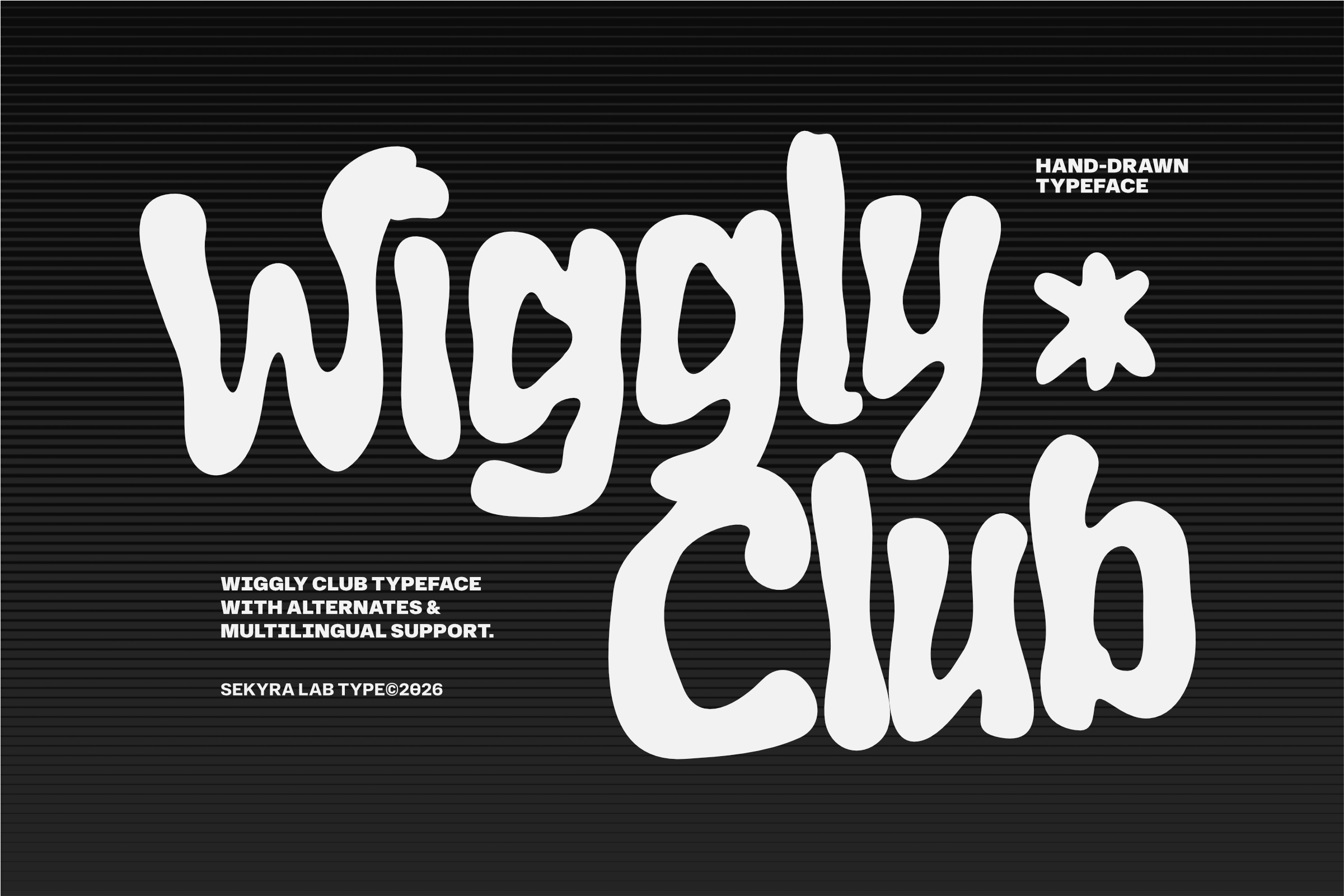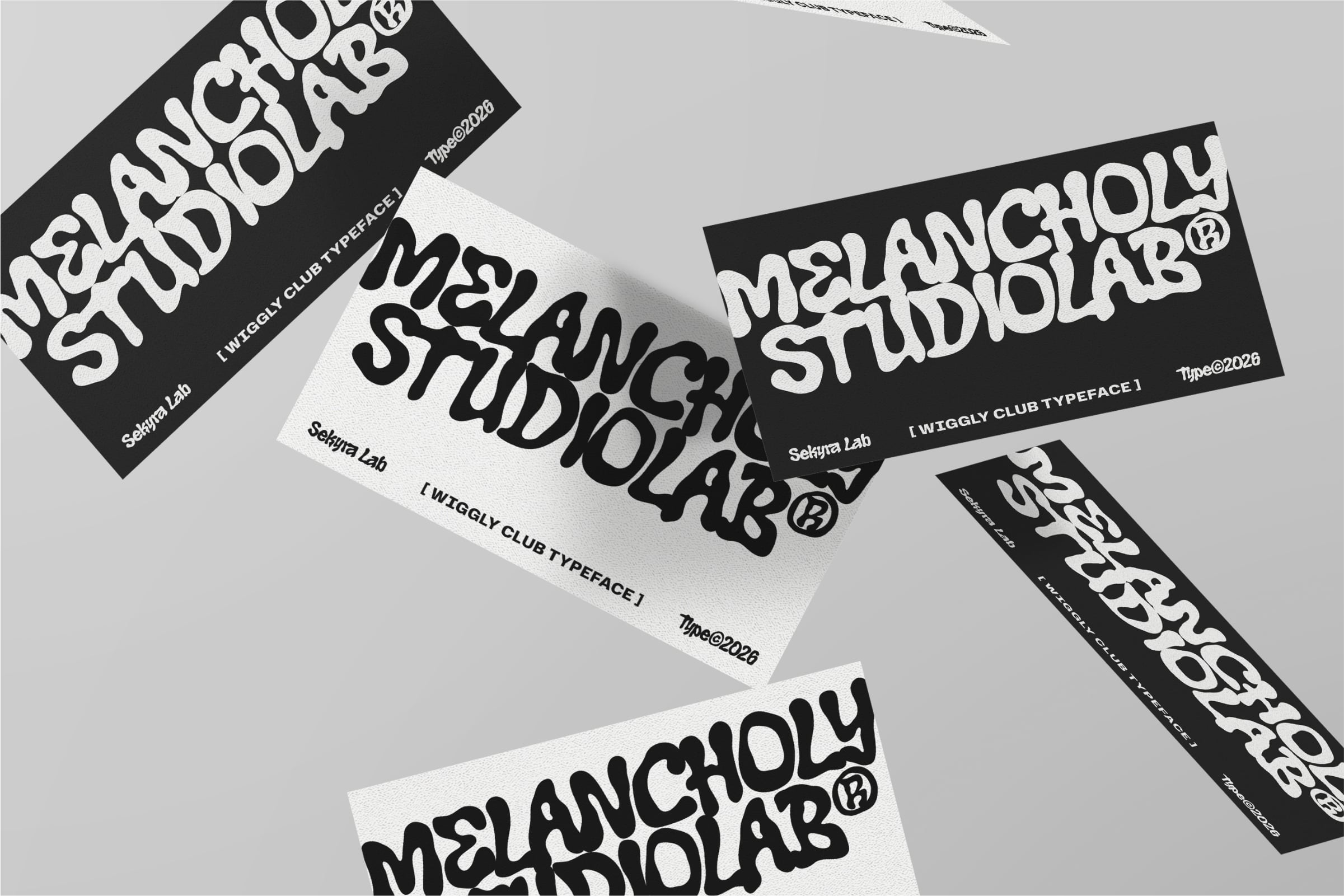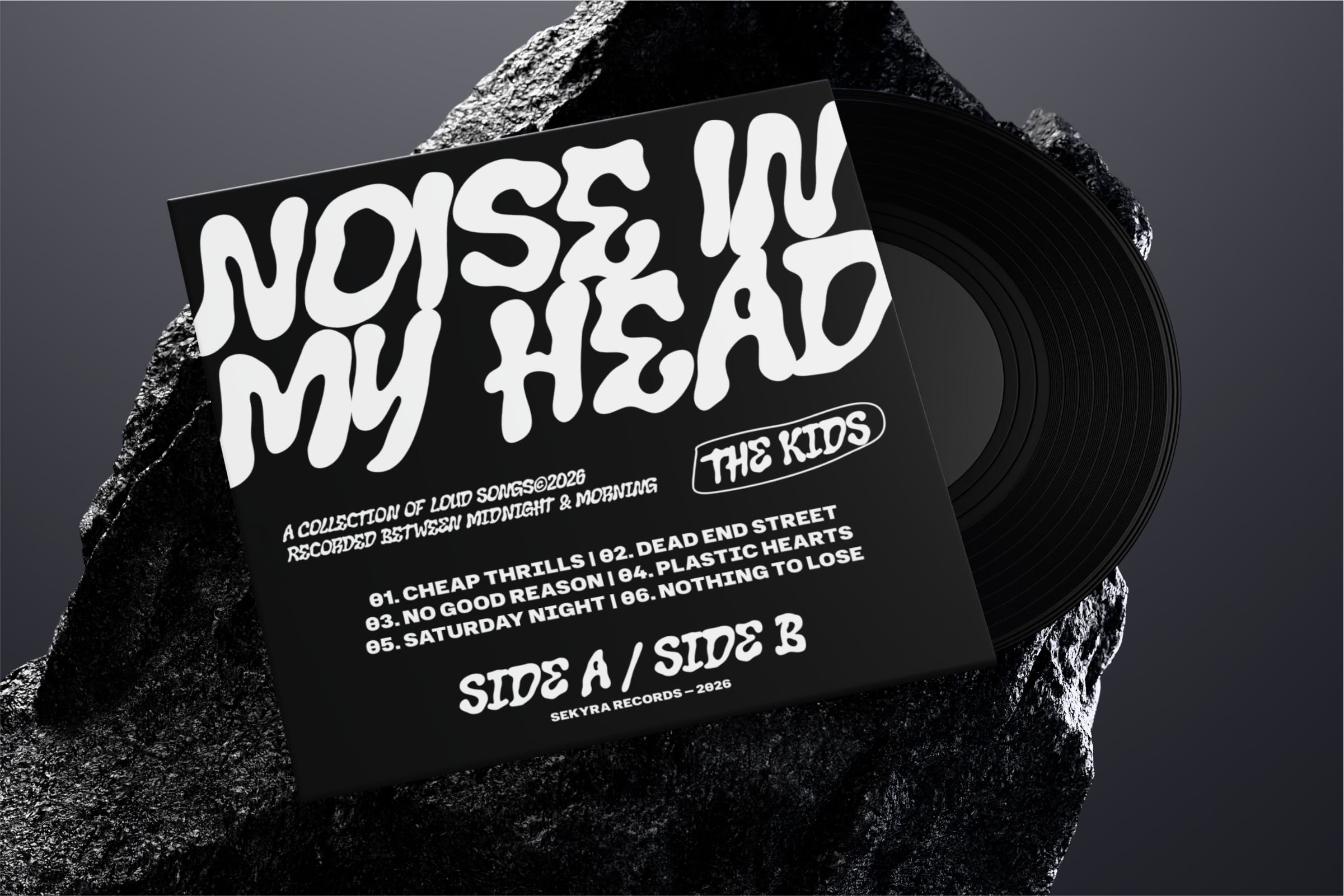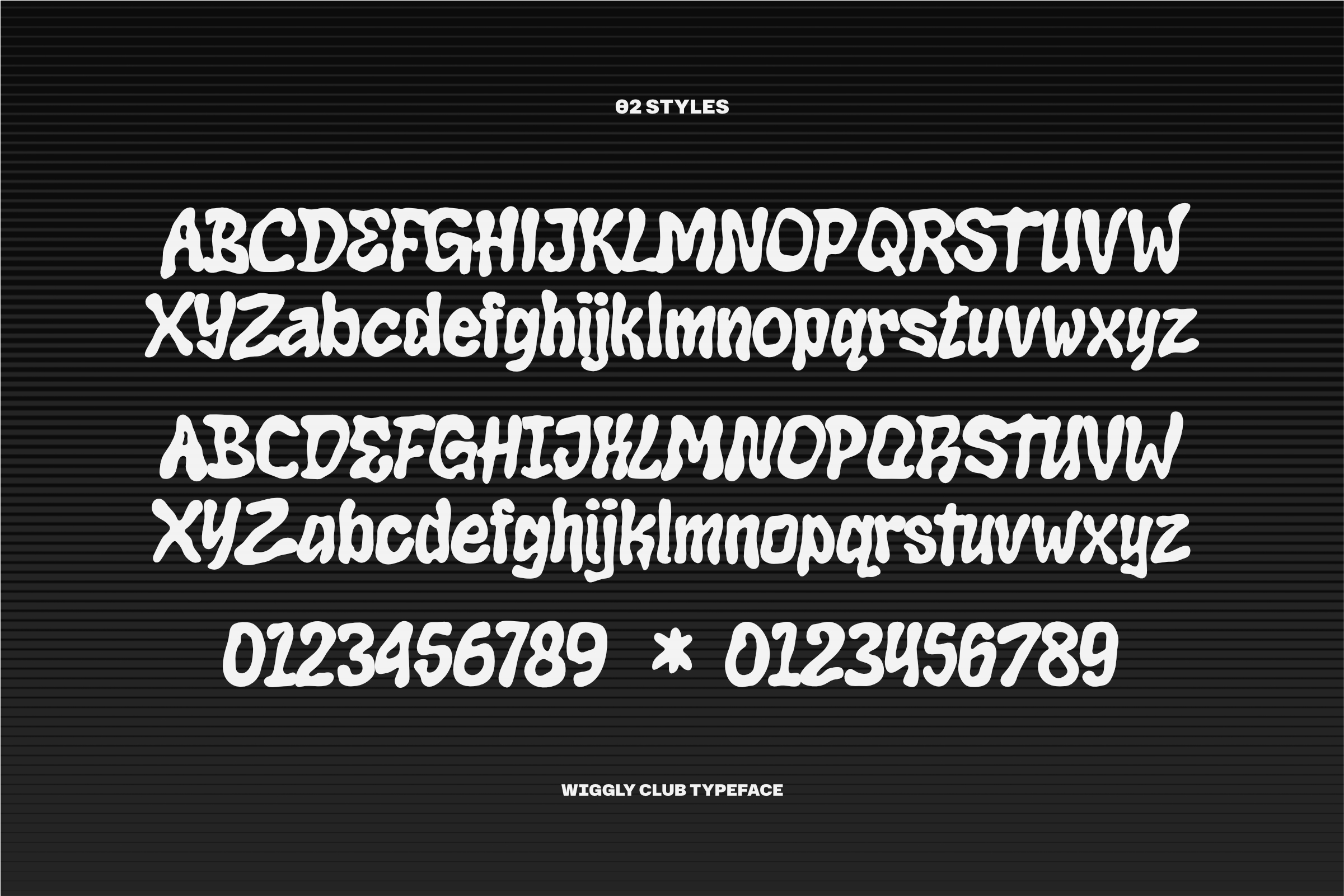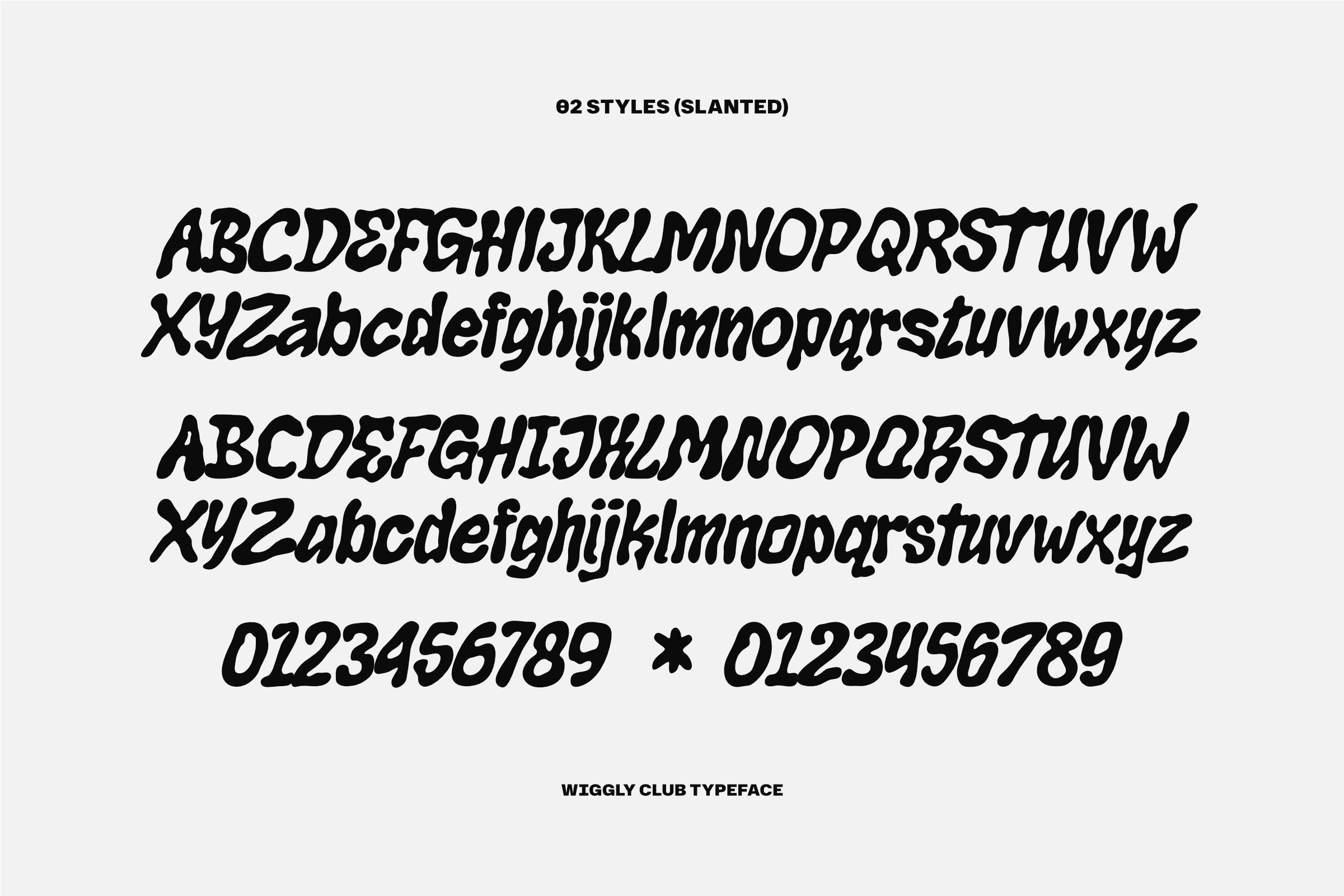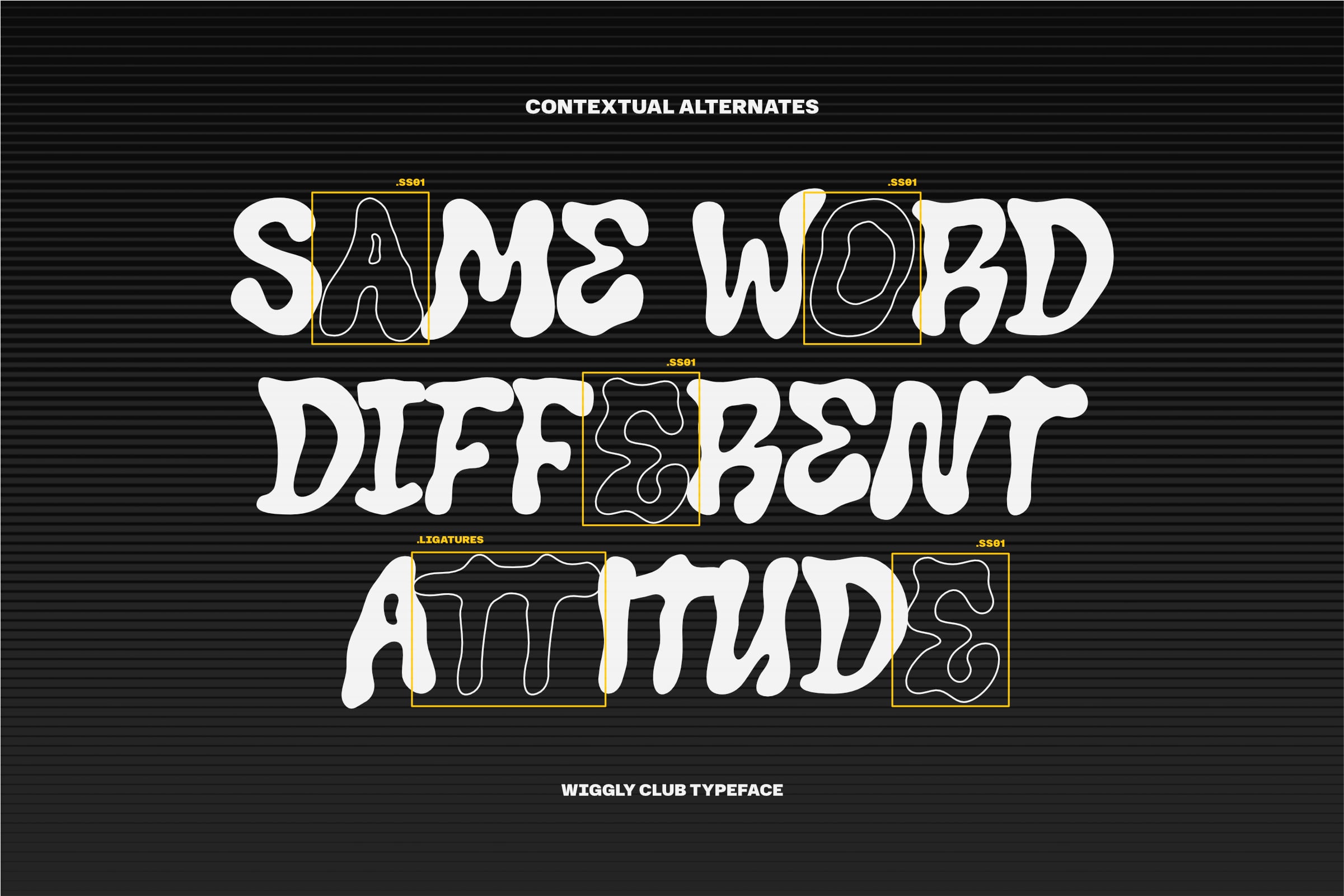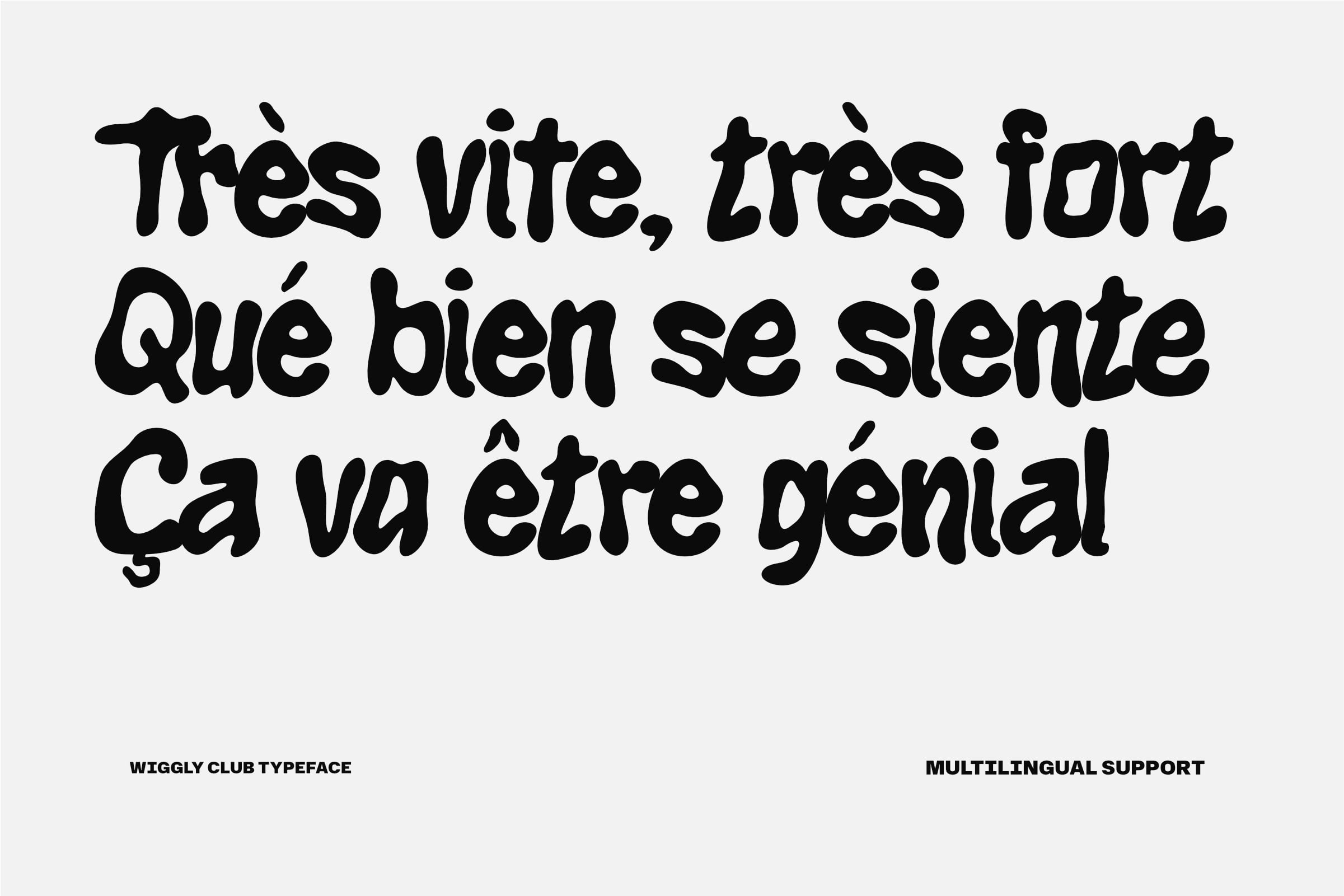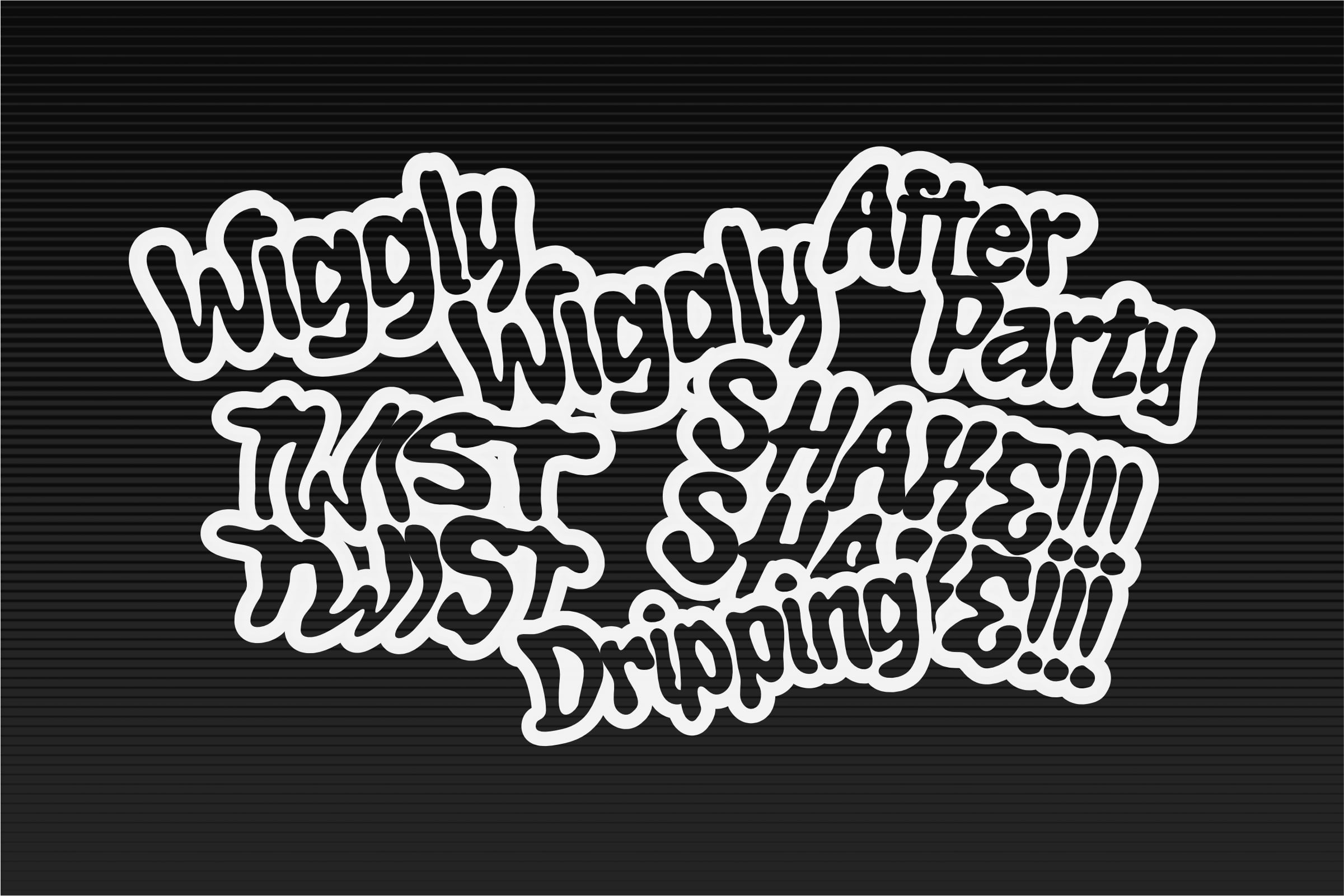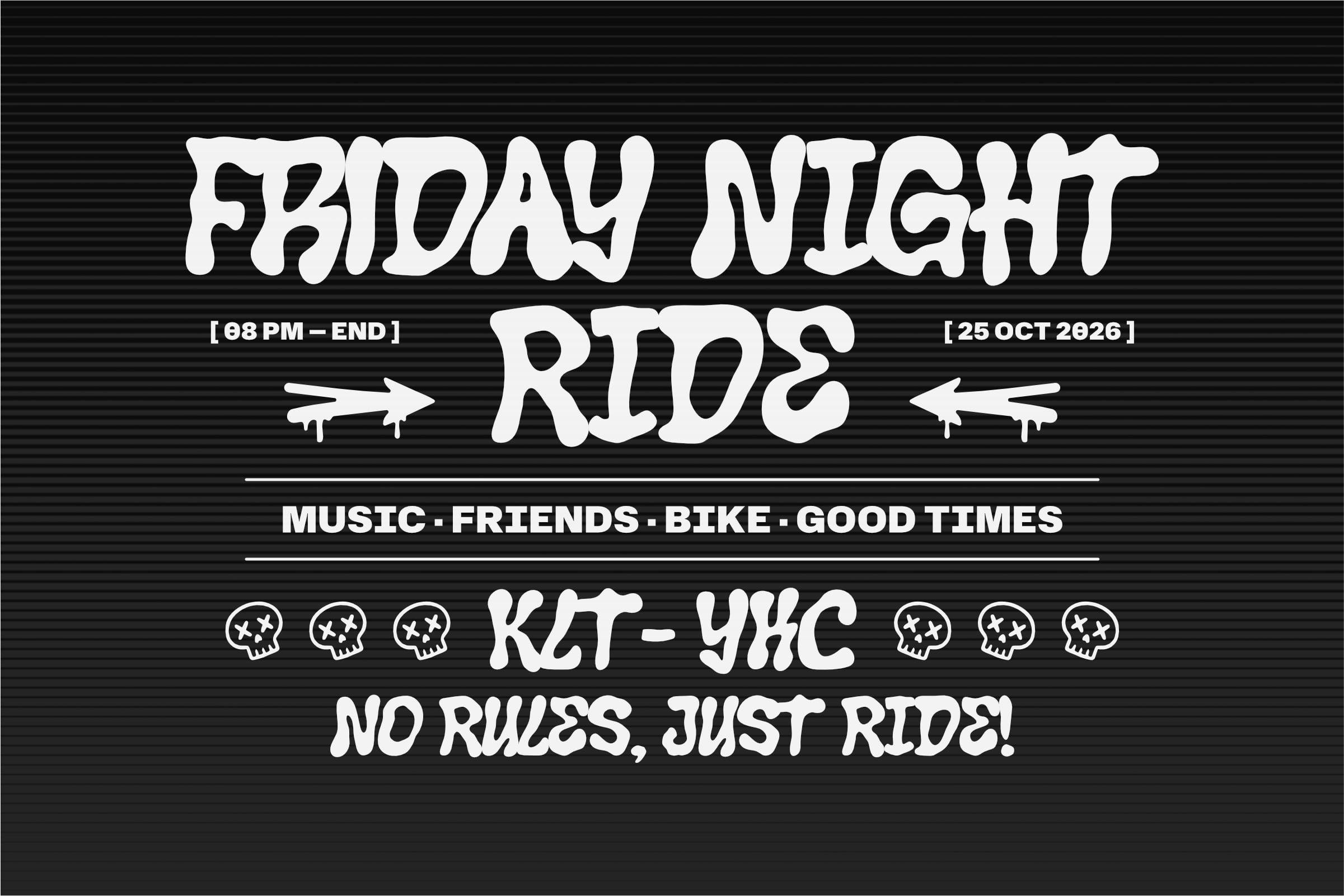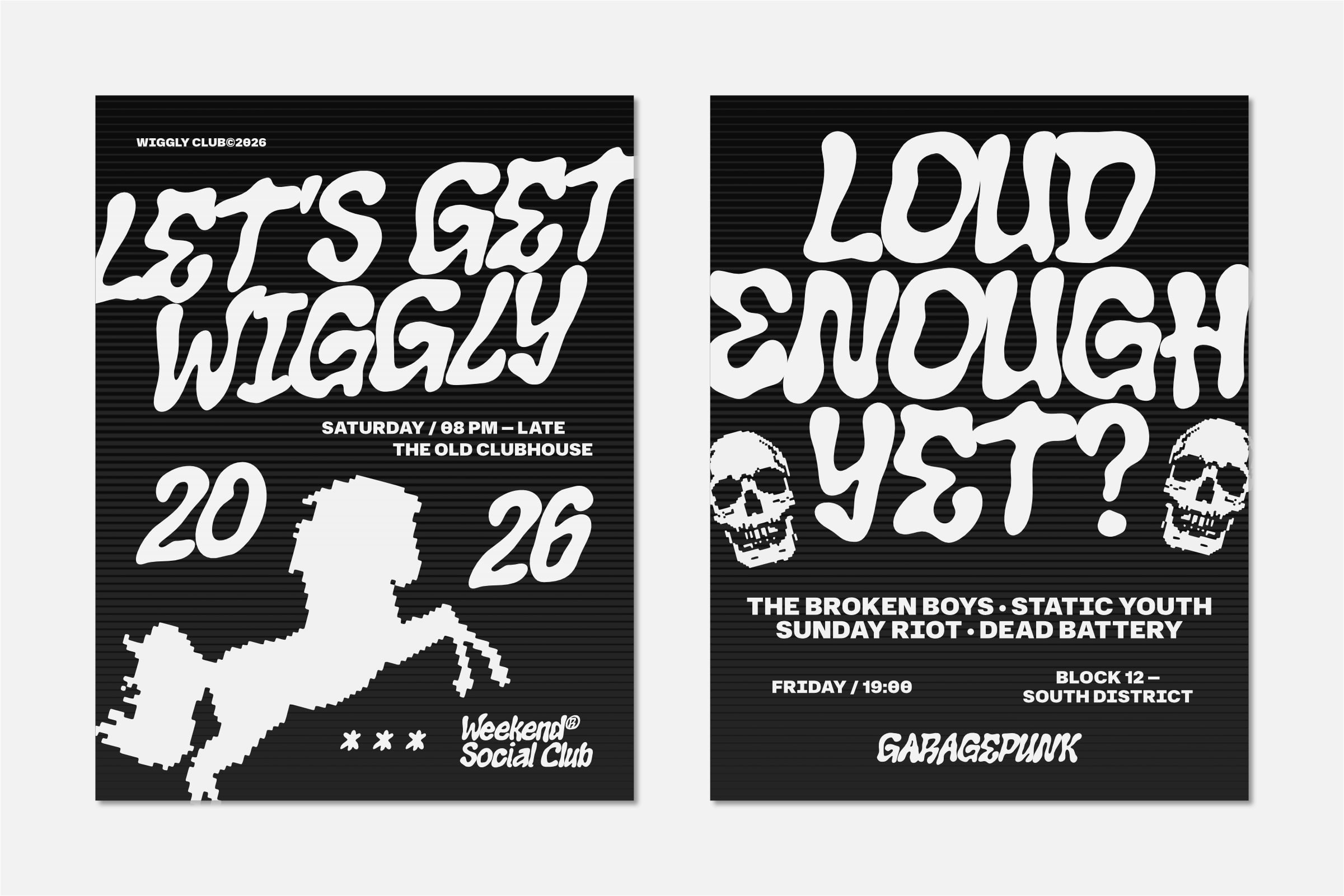
Wiggly Club is a playful hand-drawn display font designed to bring a bold, wobbly, and expressive personality to your creative projects. Featuring chunky organic..letterforms, irregular curves, and a distinctive handmade appearance, Wiggly Club is perfect for posters, music artwork, branding, packaging, apparel, stickers, social media graphics, and eye-catching headlines.
The family includes 2 styles: Regular and Slanted, giving you both a relaxed playful look and a more energetic, dynamic alternative. With contextual alternates, stylistic ligatures, multilingual support, and expressive letterforms, Wiggly Club lets you create typography that feels spontaneous, unconventional, and full of character.
FEATURES
2 Styles (Regular & Slanted)
Contextual Alternates
Stylistic Ligatures
Multilingual Support
Uppercase & Lowercase
Numerals & Punctuation
Hand-Drawn & Wobbly Letterforms